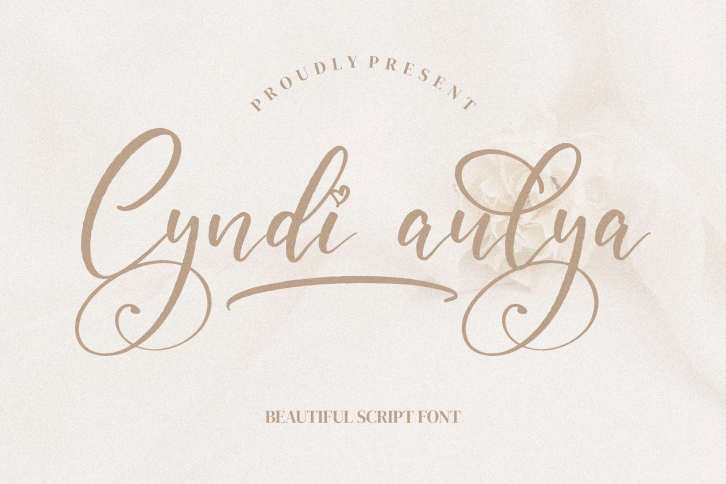
Cyndi aulya is a trendy and unique font with an authentic style. It was designed by Integritype Studio and it's a great choice for creative people who need such a font. It was released on December 11, 2021 and the file size is 11.96 MB. Cyndi aulya will add an organic vibe to any design idea!